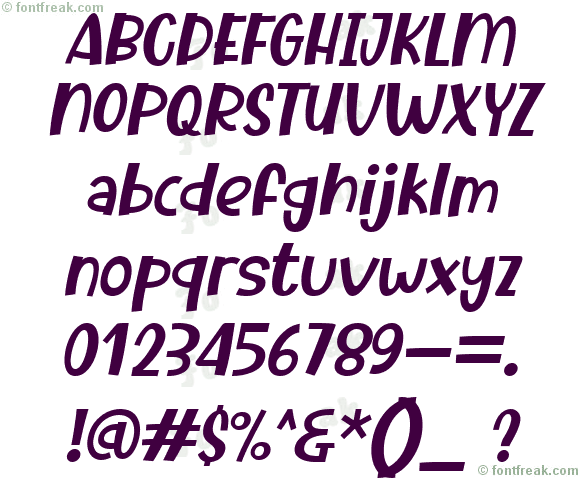
Dotuku Italic
About Dotuku Italic
Dotuku Italic, created by Situjuh Nazara, is a distinctive display font that captures attention with its unique style. This italic typeface is characterized by its playful, energetic strokes that boast a moderate weight, providing a balanced appearance. The design features smooth curves and varying widths, lending an air of spontaneity while ensuring legibility. The spacing between characters is thoughtfully arranged, allowing for easy reading, making it suitable for various creative projects.
Ideal for a range of applications, Dotuku Italic excels in settings such as wedding invitations, where its whimsical flair adds a personal touch. It can also elevate movie posters, drawing in viewers with its bold presence. Restaurant menus benefit from its decorative elements, enhancing the overall dining experience and making dishes stand out. Additionally, small business branding can leverage this font to create memorable logos and marketing materials that resonate with customers.
The target audience for Dotuku Italic includes graphic designers seeking unique typefaces for their projects, small business owners aiming to establish a distinctive brand identity, and content creators looking to enhance their visual storytelling. This font’s versatility makes it a valuable asset in any designer's toolkit.
What truly sets Dotuku Italic apart is its ability to blend playfulness with professionalism, making it an excellent choice for both formal and casual contexts. Its freeware license allows users to experiment freely, providing endless opportunities for creativity. Whether you're designing a vibrant flyer or crafting an elegant invitation, the Dotuku Italic font free download offers an exciting option that can transform any project into a visual delight.